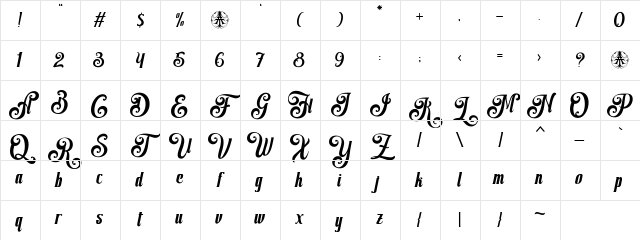
Rubra Costa Personal Use Only Regular Free Font
Rubra Costa Personal Use Only Regular
Foundry: @typealiens
Designer: TypeAliens
Design Context for Rubra Costa Personal Use Only
Rubra Costa Personal Use Only is a composed and adaptable typeface that performs quietly and consistently across a wide range of design contexts.